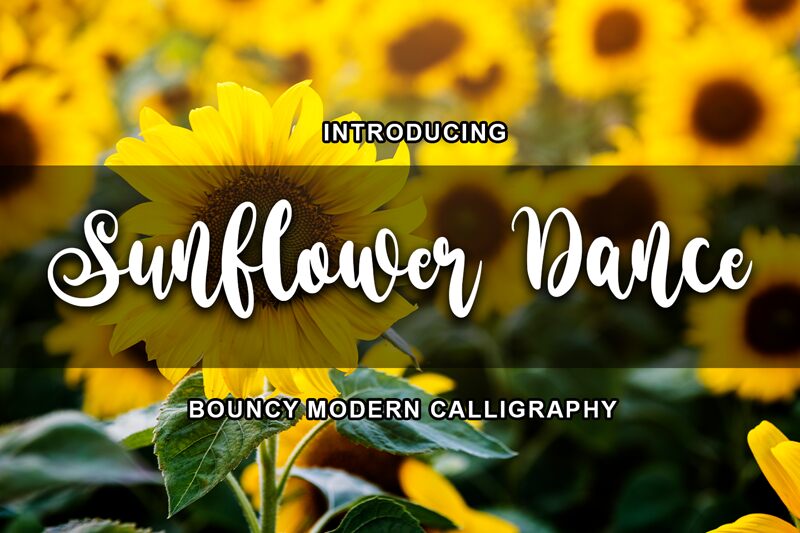
Introducing Sunflower Dance, a modern calligraphy font designed by Panggah Laksono at Abo Daniel Studio. This font is perfect for adding an elegant and unique twist to your project. It's ideal for wedding invitations, logos, greeting cards, business cards and other creative projects. The soft curves of the letters evoke a feeling of warmth and beauty that will give your designs an eye-catching look!
Sunflower Dance